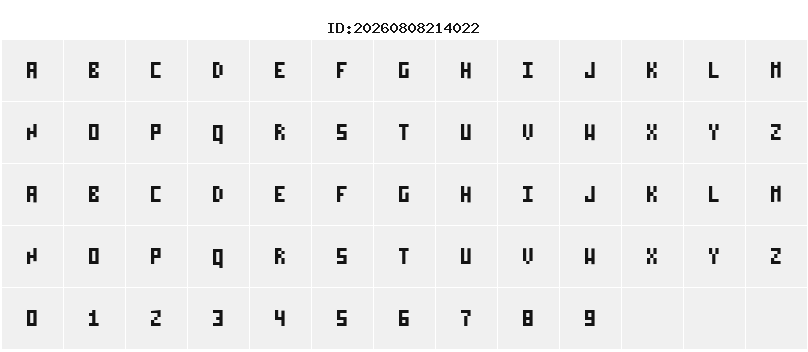
Pixelzim Preview
• Font Name: Pixelzim
• Font Style: 3x5
• Full Font Name: Pixelzim 3x5
• Designer: zeh rorshack
• Description: usar tamanho 8, sem antialias